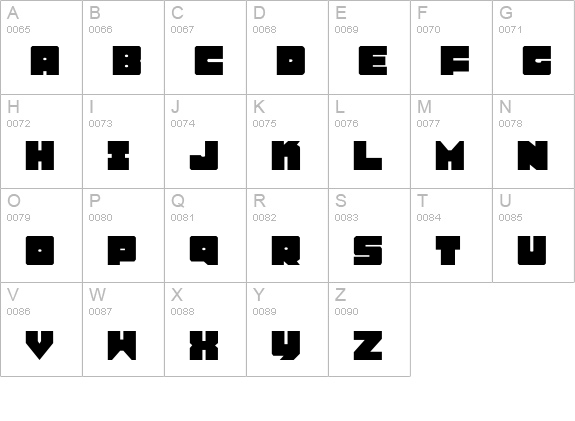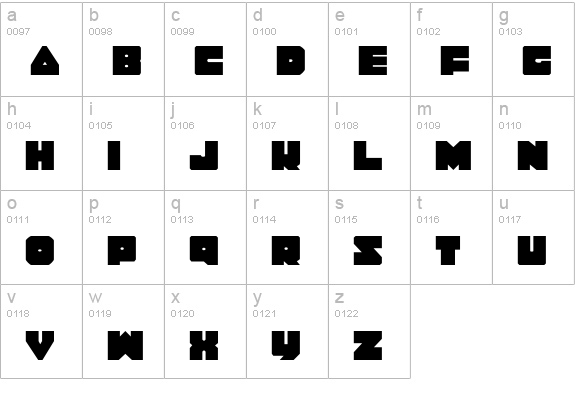
Lobo Tommy font is a bold and modern typeface that exudes strength and confidence. With its sharp edges and clean lines, this font is perfect for creating eye-catching headlines, posters, and logos. The versatility of Lobo Tommy font allows it to be used in a variety of design projects, from branding to editorial design. What sets Lobo Tommy font apart is not just its striking appearance, but also the fact that it is available for free. Yes, you read that right - you can download Lobo Tommy font for free at FontsMarket.com. This means you can add this impressive font to your collection without having to spend a dime. Whether you're a seasoned designer looking for a fresh font to add to your toolkit or a beginner exploring typography for the first time, Lobo Tommy font is a great choice. With its bold style and modern aesthetic, this font is sure to make a statement in any design project. Download Lobo Tommy font today and unleash your creativity!